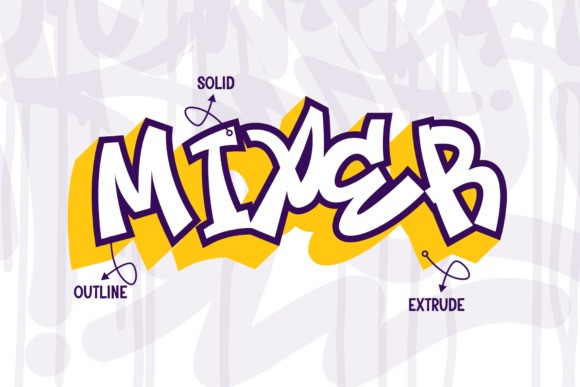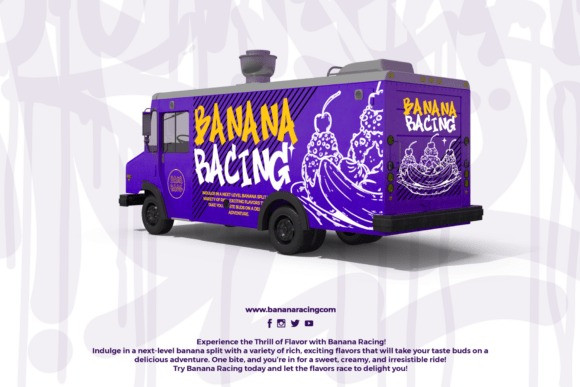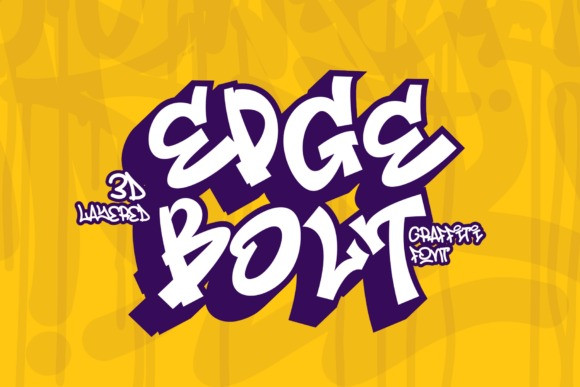
Edge Bolt Font
Edge Bolt Font a 3D graffiti font that packs a punch. With its bold dynamism, Edge Bolt features razor-sharp, streamlined characters that inject a vibrant, electrifying street-style vibe into your artistic creations. Consisting of three unique layers – Solid, Outline, and Extrude – this font effortlessly enables you to design with depth and dimension that demands attention.
Whether your focus is on streetwear branding, poster creation, digital artwork, or projects with an urban influence, Edge Bolt provides a dramatic, cutting-edge finish. This font’s multi-layer versatility allows for seamless blending and pairing of styles, evolving your creative expression into a pioneering visual journey that leaves an unforgettable imprint.